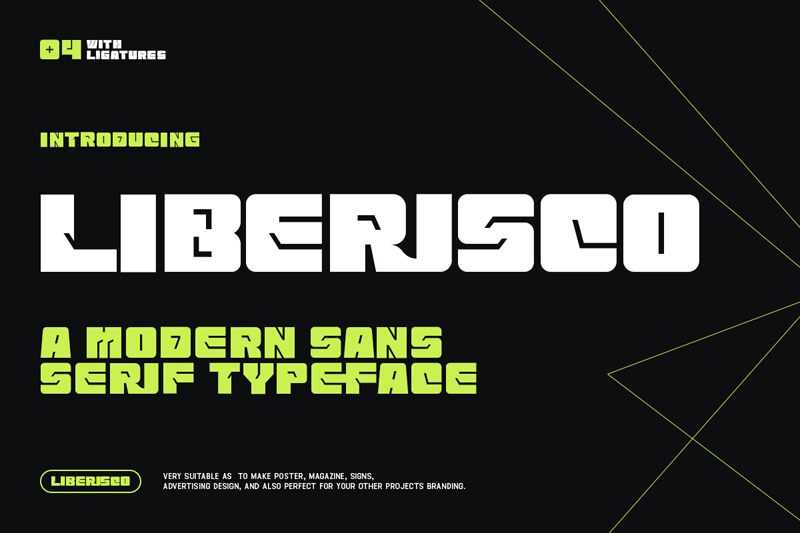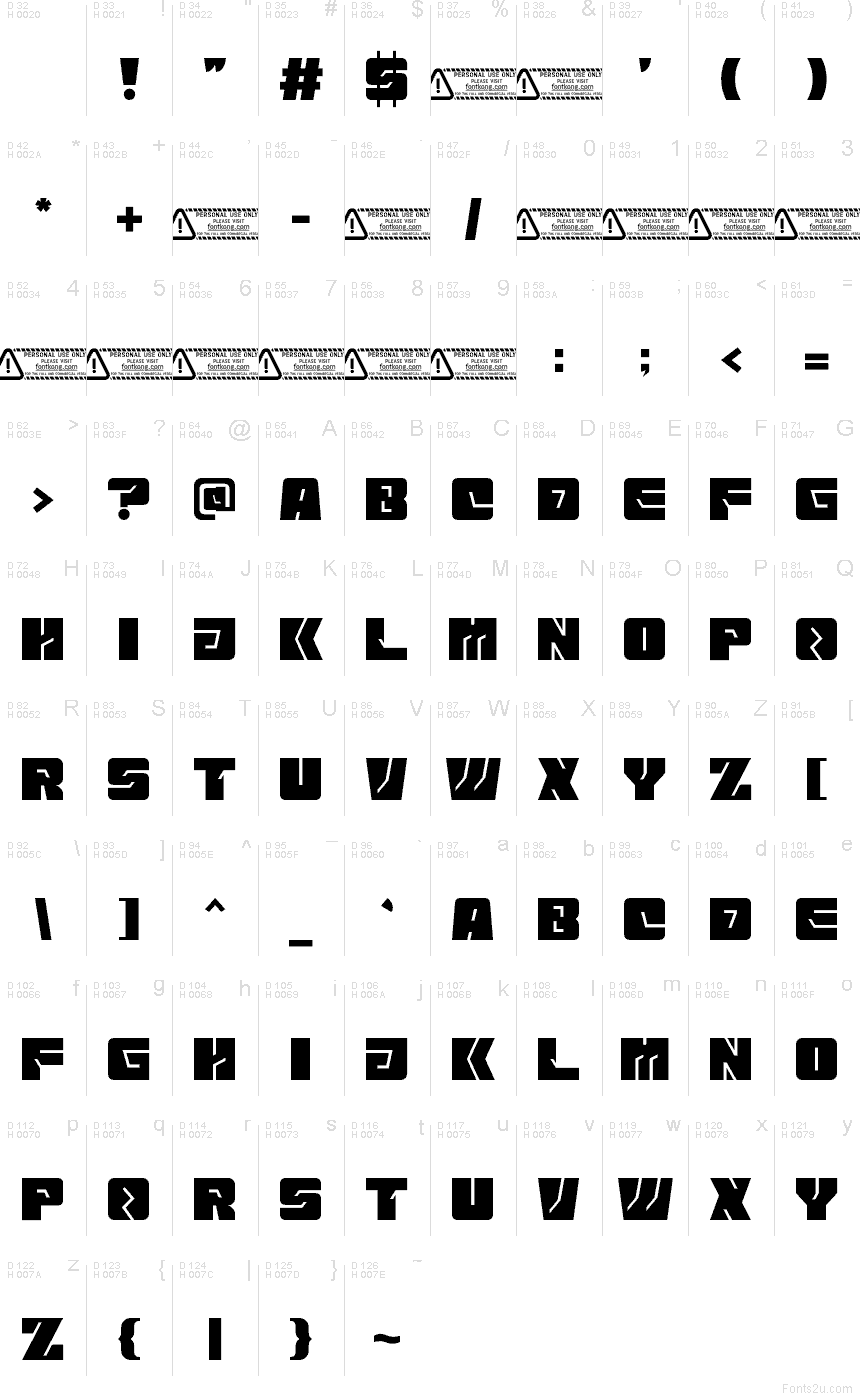
Liberisco font by Kong Font is a free techno display font that hits like a steel beam across the page. Every letter is carved from bold rectangular blocks, with sharp inner cuts that feel like circuitry or mech armor plating. The tight, modular rhythm gives it a heavy, industrial presence, while the clean edges keep it crisp and readable at large sizes.
Using Liberisco, you get a strong, futuristic voice that works beautifully for gaming logos, esports branding, sci‑fi posters, tech event graphics, Twitch overlays, and bold merchandise titles. This free font shines when used big and bright, especially in all caps. Pair Liberisco with a simple geometric sans for body copy to keep all that rugged, mechanical energy under control.